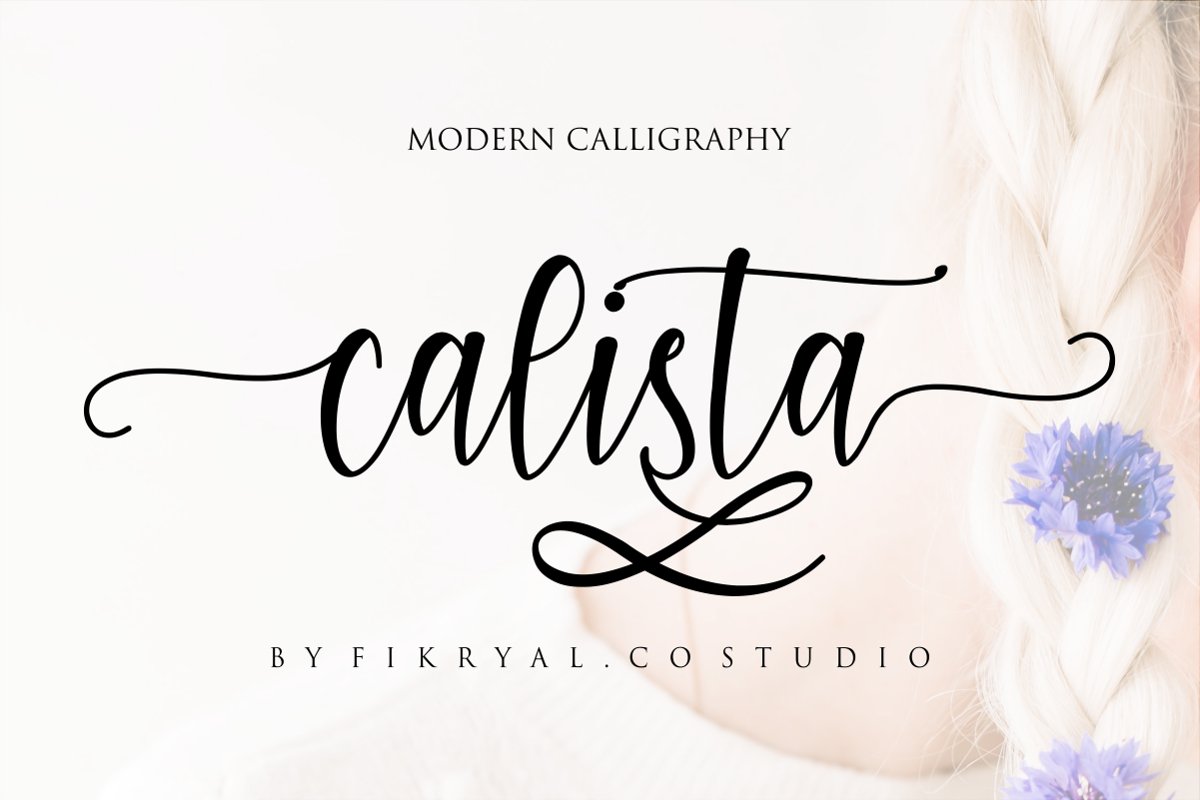
calista - Modern Calligraphy
calista
calista- is a modern calligraphy with beginning and ending swashes font.
This font is made in a modern style with a very beautiful beginning and ending.elegantly, but very casual and suitable for your various design needsI'tsPerfect for logo,branding,  tittle, social media posts, advertisements, product packaging, product designs, label, photography, watermark, special event,magazine,web design,etc.What's
• beginning and ending swashes